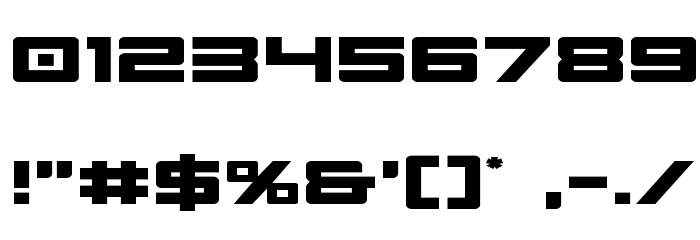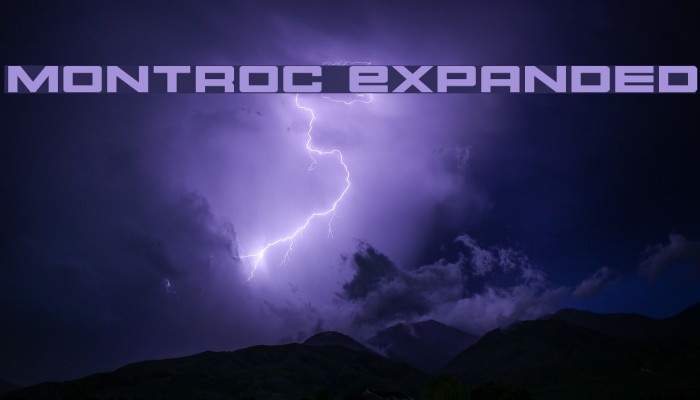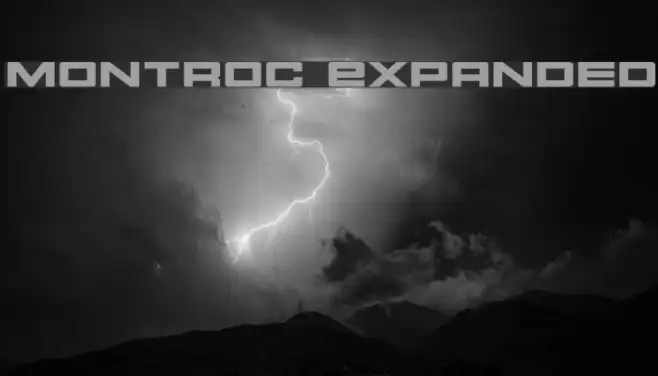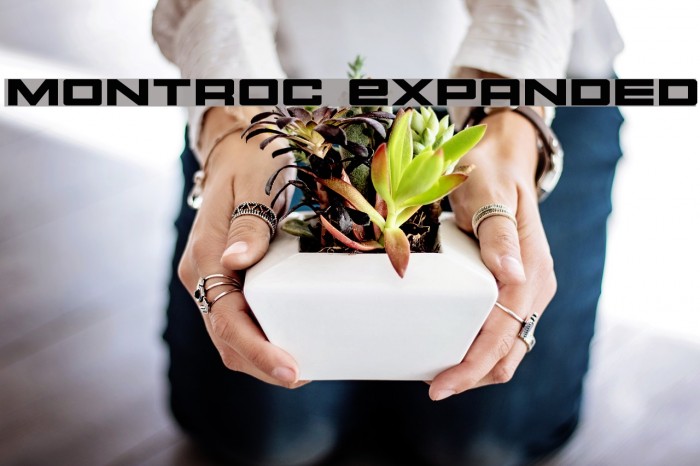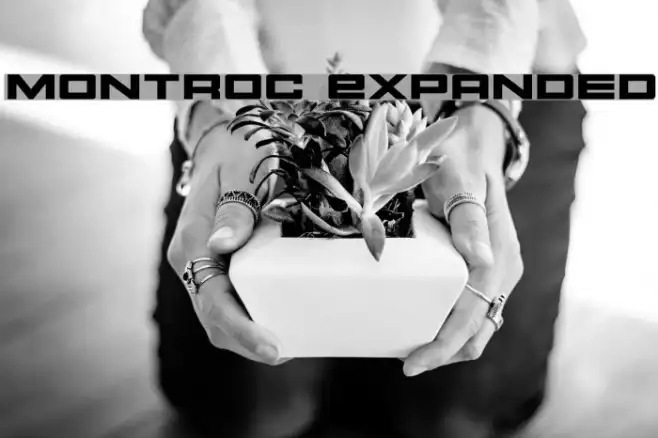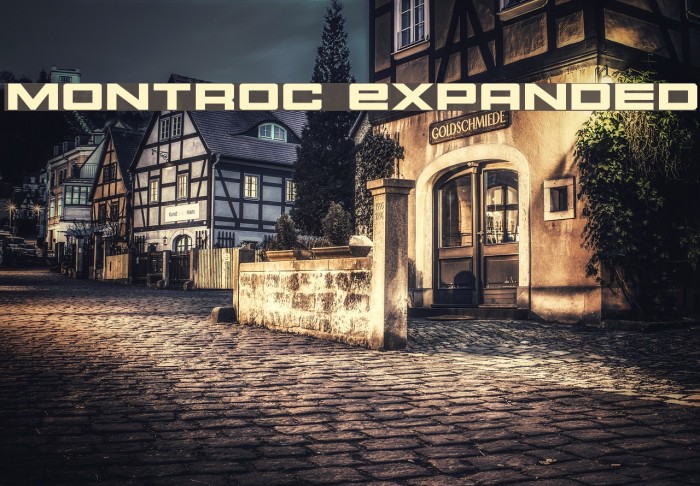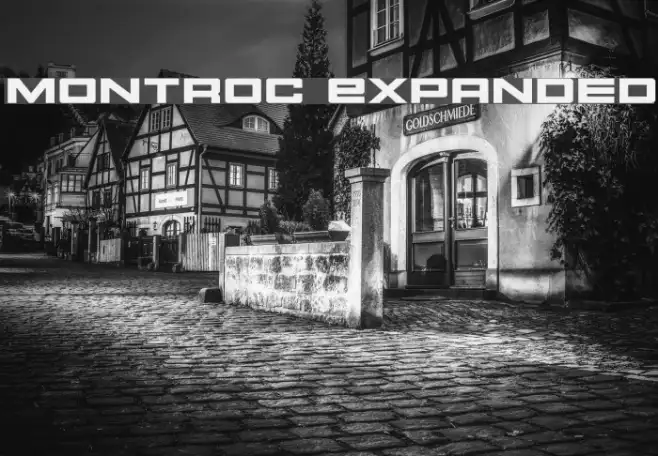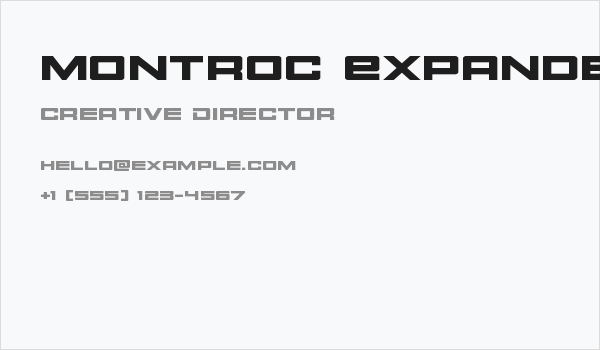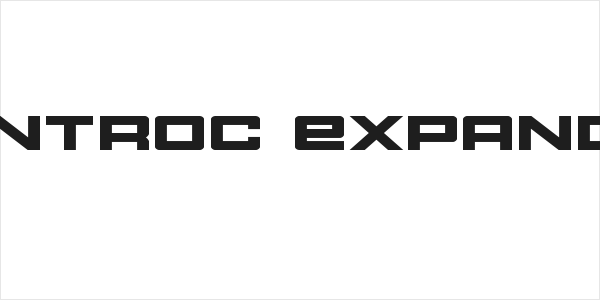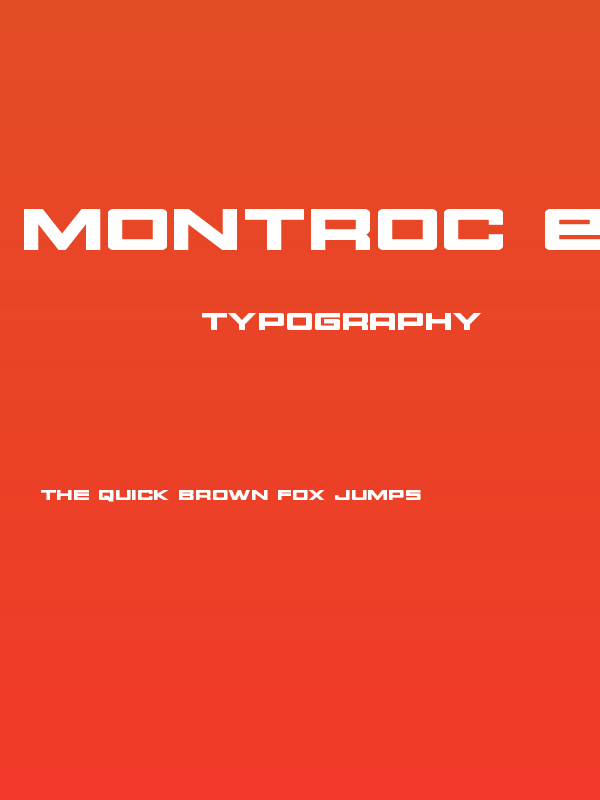
Montroc Expanded Font
This font features a bold, geometric style with a distinctly modern and futuristic appearance. The characters are constructed with strong, angular lines and a consistent stroke width, giving them a robust and impactful presence. The design is clean and minimalistic, with a focus on clarity and readability. The uppercase and lowercase letters maintain a uniform height, contributing to a cohesive and orderly look. The numerals and special characters are crafted with the same attention to detail, ensuring a harmonious overall aesthetic. This font is well-suited for projects that require a contemporary and assertive typeface.
| Proposed Projects | Ideal for technology branding, sci-fi themed designs, video game interfaces, and modern advertising campaigns. |